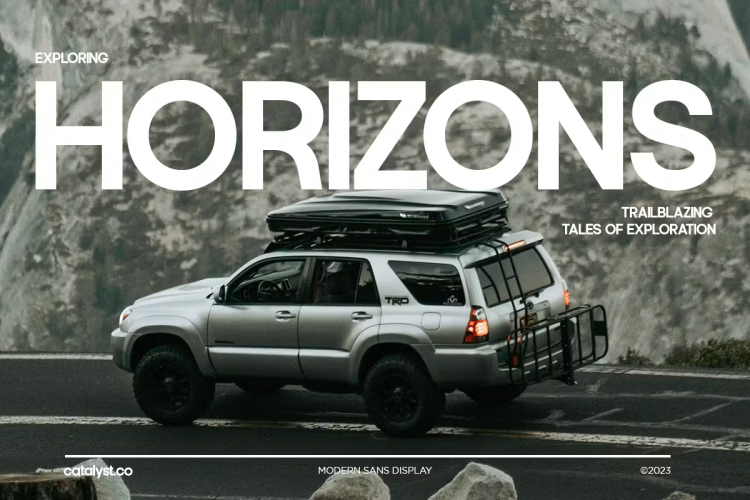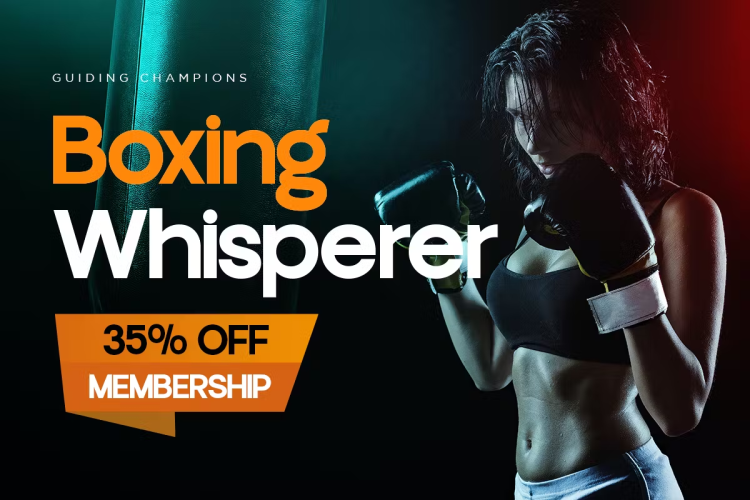
Francy Font
Francy is an excellent font for manufacturing quote text, logotype, header magazine, and many more. A masterpiece for your daily design projects.
Where Francy Font works best
Francy Font keeps its shape at 14 and 16 pixels, which is where interface text actually lives. Numbers and capitals stay distinguishable in tables.
Presentations are read at a distance; a clean sans with a strong bold is the safest hierarchy you can build in a hurry.
Simple letterforms survive angles, glare and movement, so Francy Font suits door signs, menus boards and exhibition panels.
What kind of work does Francy Font suit?